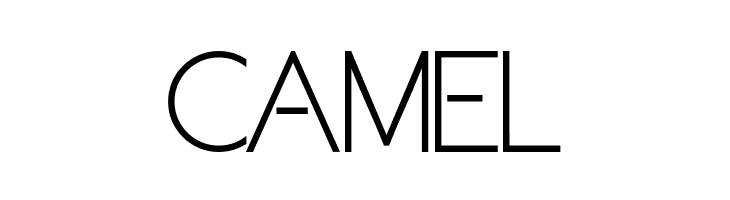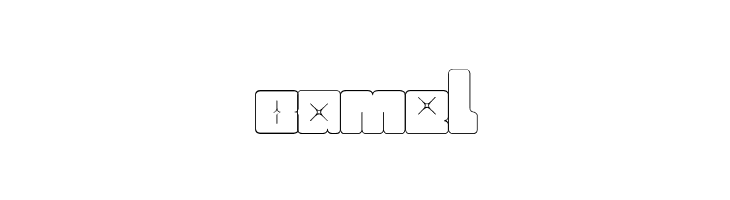
• Arcades
A bold, geometric font with a futuristic, arcade-inspired design.
• Archaic1897
A classic serif font with high contrast and elegant curves.
• Archaic1897
A classic serif font with high contrast and elegant serifs.
• Archieve
A modern, playful font with geometric and organic elements.
• ARCHITECTURE
A bold, geometric font with a modern, architectural style.
• Archivo Black
A bold, sans-serif font with a strong, modern presence.
• Archivo Black
A bold, geometric font with high contrast and a modern style.
• Arcon
A modern, geometric sans-serif font with a clean and minimalist design.
• Arcon Rounded-Regular
A modern, rounded font with clean lines and balanced spacing.
• Ardeco
A geometric, Art Deco-inspired font with elegant, elongated forms.
• Ardeco
A sleek, art deco-inspired font with tall, narrow letterforms and subtle curves.
• Ardnas
• Aref Ruqaa Bold
A bold, dynamic serif font with a slight slant and strong presence.
• Aref Ruqaa Regular
An elegant serif font with a blend of traditional and modern elements.
• Areson
An ornate and decorative font with elaborate swirls and flourishes.
• Areson
An ornate and decorative font with elaborate swirls and flourishes.
• Argentina Austral
A bold, edgy font with sharp, angular edges and a distressed look.
• Argentina Austral
A bold, angular font with a distressed, edgy style.
• Argentum Novus Black Italic
A bold, italicized font with thick strokes and dynamic slant.
• Argentum Novus Bold Italic
A bold and italic font with a modern, dynamic style.
• Argentum Novus ExtraBold Italic